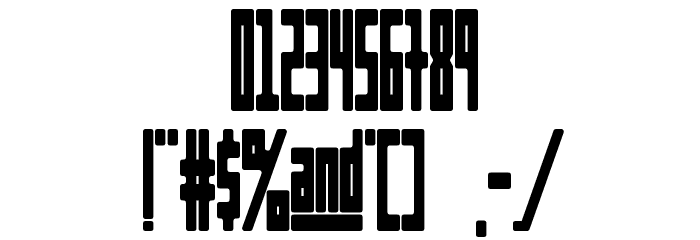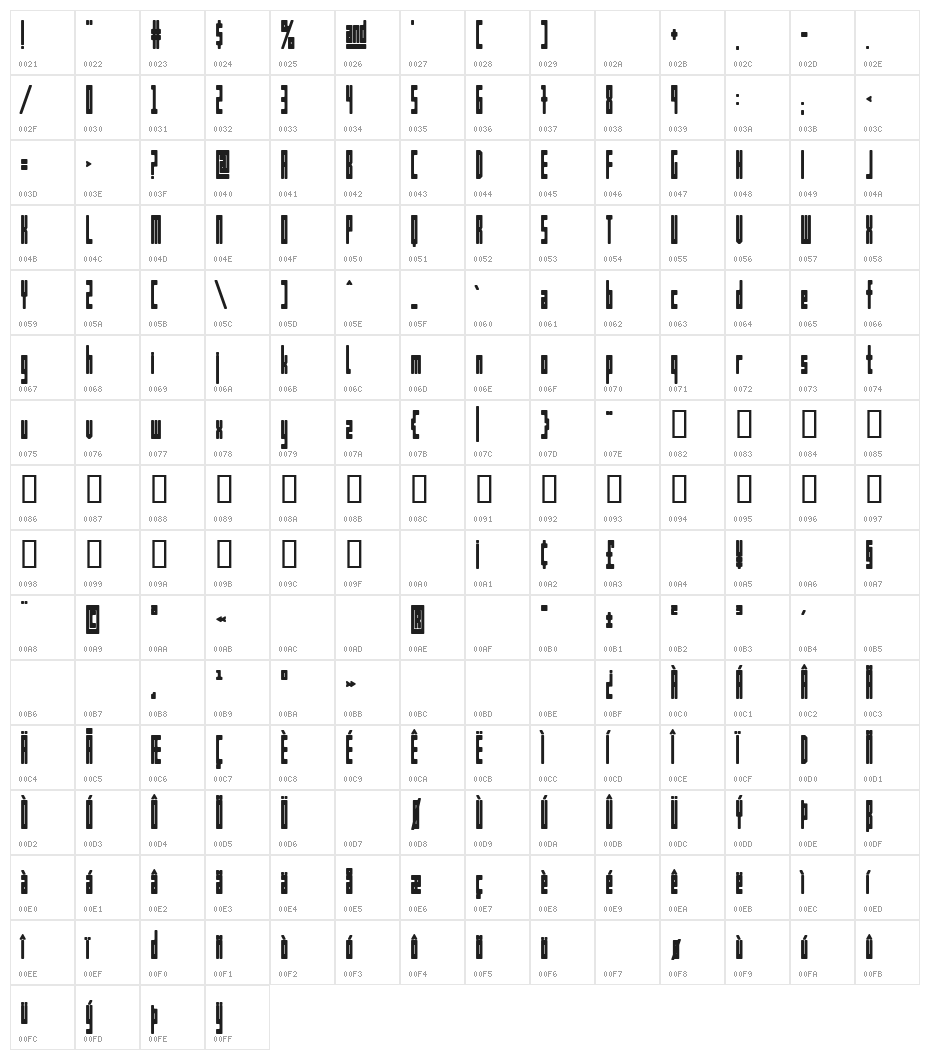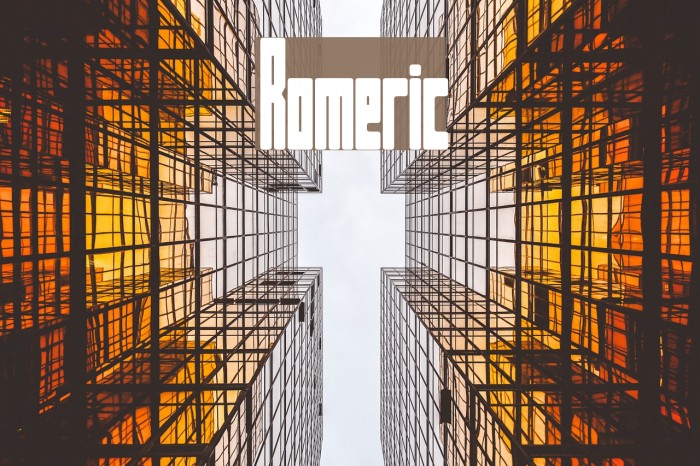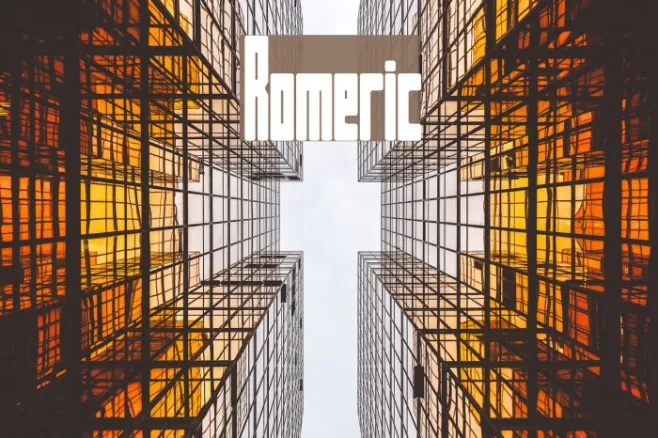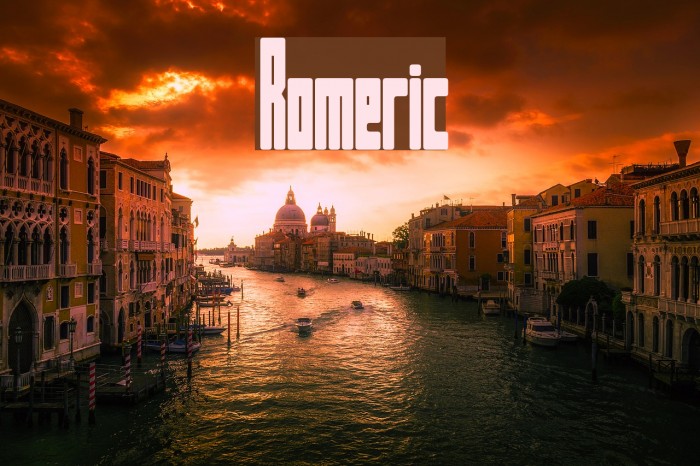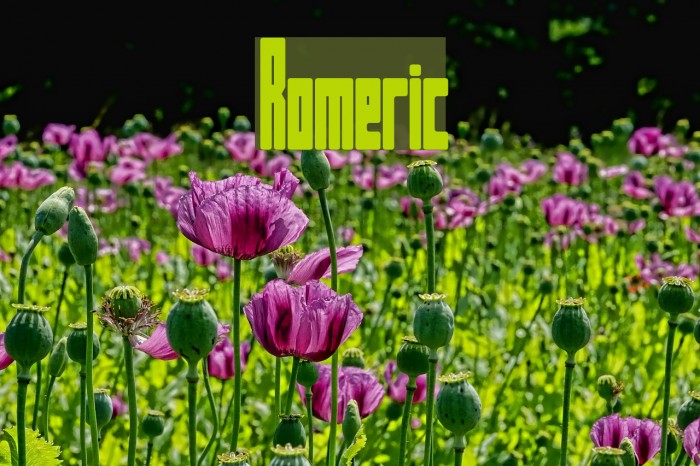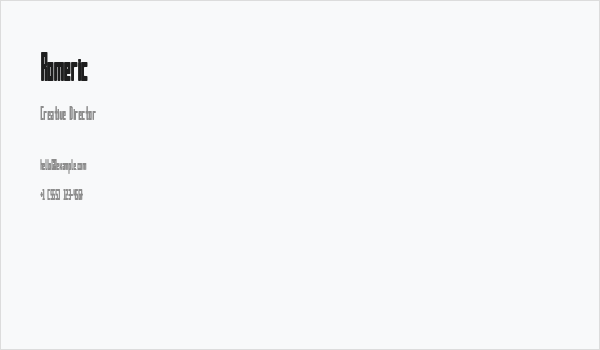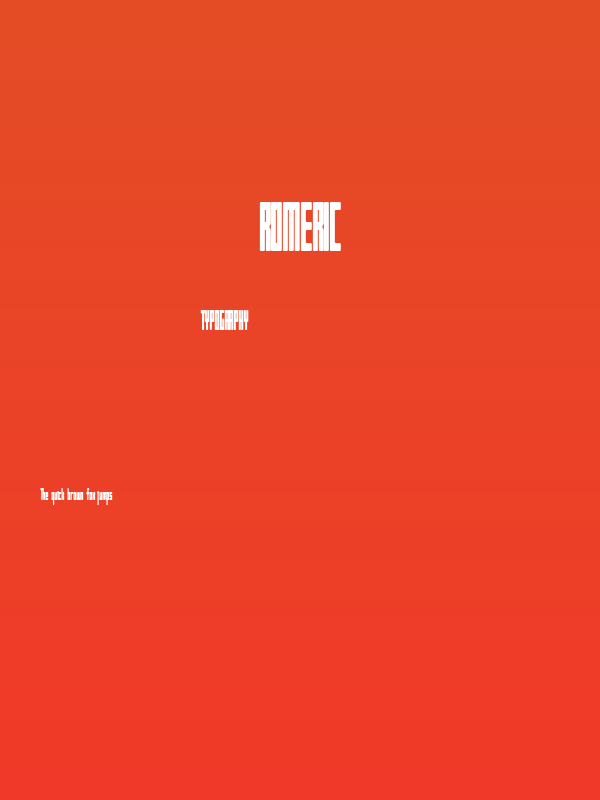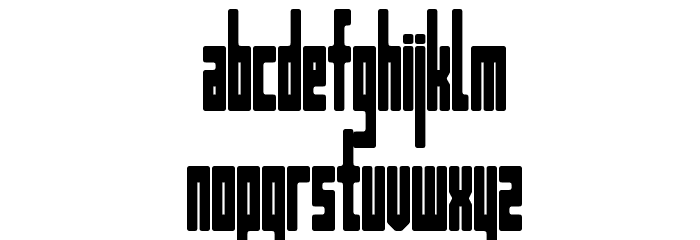
Romeric Font
Romeric Description
This font features a bold and geometric design, characterized by its blocky and solid letterforms. The uppercase and lowercase letters maintain a consistent width, creating a uniform appearance. The numbers and special characters follow the same stylistic approach, ensuring cohesion across all elements. The font's strong presence and modern aesthetic make it suitable for impactful designs. Its unique style is ideal for projects that require a bold statement, such as posters, headlines, and branding materials.
| Proposed Projects | Ideal for posters, headlines, branding, and any design requiring a strong visual impact. |